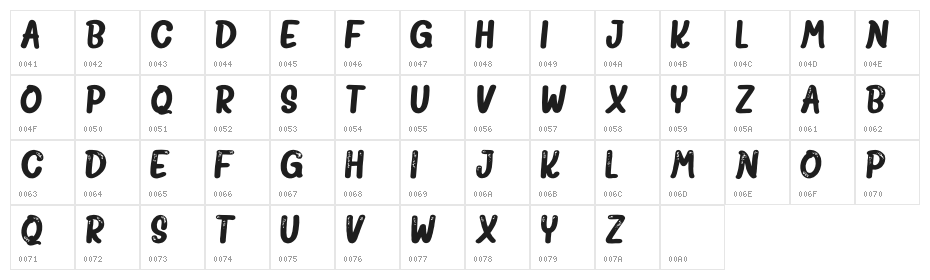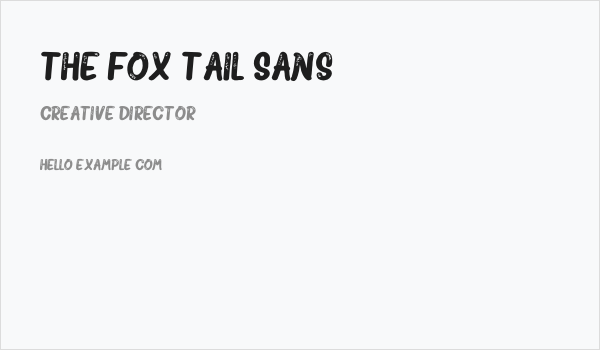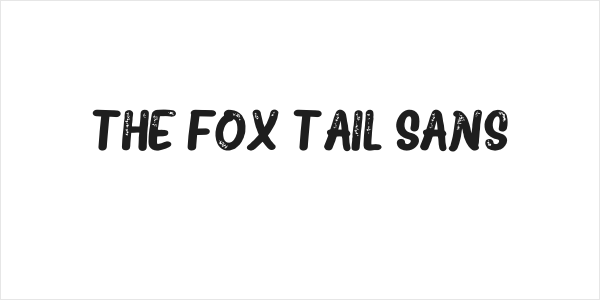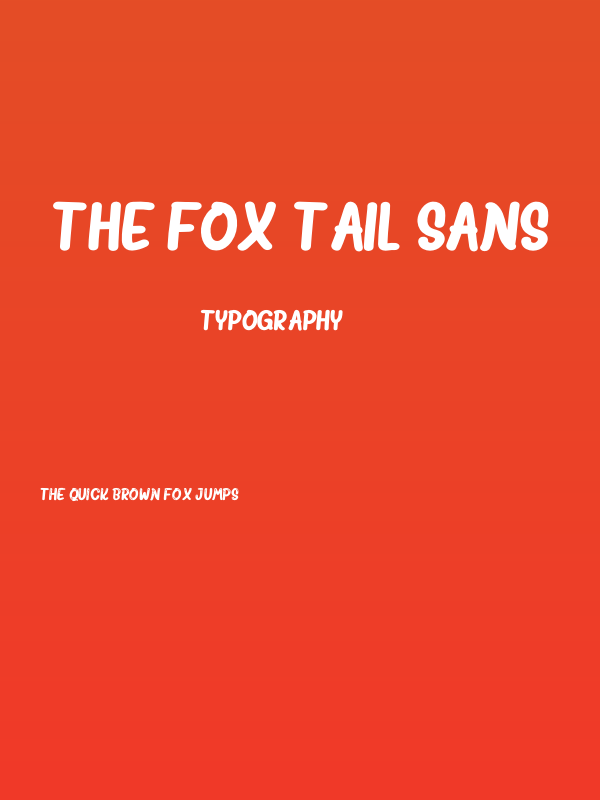
The Fox Tail Sans Font
The Fox Tail Sans Description
This font features a playful and bold style with rounded edges, giving it a friendly and approachable appearance. The letters are slightly condensed, which adds to its unique charm. The uppercase and lowercase characters maintain a consistent weight, providing a harmonious look. The font includes a textured version that adds a distressed, vintage feel, perfect for creative projects. Its boldness ensures readability while the rounded forms contribute to a casual, informal tone. The inclusion of numbers and special characters makes it versatile for various design needs.
| Overall Style | Playful, Vintage |
| Proposed Projects | Ideal for children's books, playful branding, posters, and creative social media graphics. |